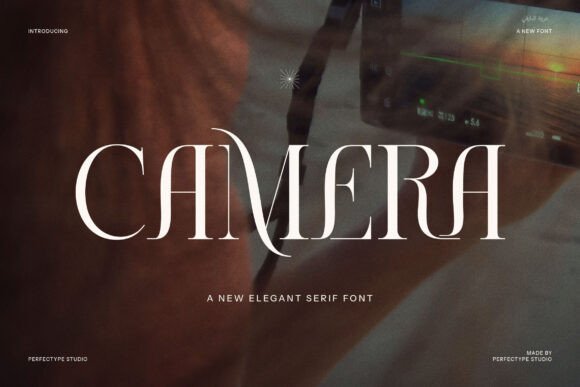
Unlocking the Power of Camera Font: Elevating Design with Sophistication
Have you ever found yourself stuck in a creative rut, scrolling through font options, and yet, nothing seems to spark the magic you’re looking for? That’s where Camera Font comes in – a masterclass in refinement and elegance that’s about to revolutionize your design process.
As a designer, you know the importance of choosing a font that not only complements your project but also elevates it to new heights. That’s exactly what Camera Font offers – a modern serif font that skillfully blends classic elements with a fresh twist, making it perfect for a wide range of creative projects. With its versatility and adaptability, Camera Font is an invaluable addition to any designer’s toolkit, capable of commanding attention and conveying a sense of sophistication in logos, branding, and high-end product designs.
Camera Font Key Features
- Size: The font family includes a wide range of weights and styles, from Thin to Black, with corresponding sizes to suit various design needs.
- Unique Character Set: Camera Font features a unique character set, including Cyrillic and Latin alphabets, as well as a wide range of punctuation marks and symbols.
- Font Width: The font has a medium to wide width, making it suitable for both body text and headlines.
Designer Review: Camera Font
Overall, I’d say Camera Font is a quirky, attention-grabbing font that’s perfect for designers who want to add a unique touch to their projects. ✨ It’s great for titles, headings, and other text elements where you want to draw the user’s attention.
- Quirky and eye-catching: Camera Font is perfect for designers who want to add a bit of personality to their projects.
- Unique characters: Each character in the font has its own unique design, making it perfect for creating a distinctive visual identity.
- Great for titles and headings: Camera Font is ideal for titles, headings, and other text elements where you want to draw the user’s attention.
- Limited legibility: Due to its quirky design, Camera Font may not be the best choice for large blocks of text, as it can be difficult to read.
- Not suitable for body text: Camera Font is best used for titles and headings, as it can be overwhelming for large amounts of body text.
Overall, I’d give Camera Font 3.5 out of 5 stars. It’s a great choice for designers who want to add a unique touch to their projects, but it’s not the best choice for every project. Use it sparingly, and you’ll get great results!